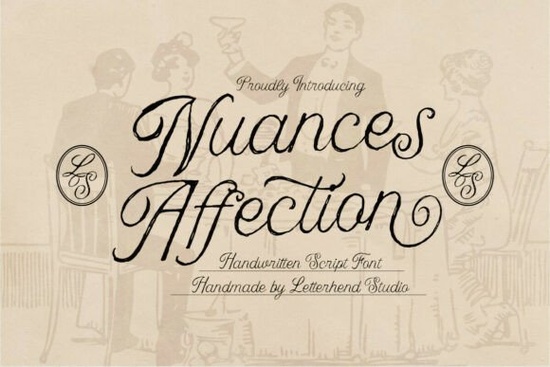
If you're looking for a script font that feels personal, warm, and quietly elegant like something handwritten with care on thick ivory paper Nuances Affection Font fits that feeling perfectly. It’s not flashy or overly ornate, but it carries a gentle confidence: soft curves, subtle swashes, and a rhythm that mimics natural handwriting. Designers and crafters who work with wedding stationery, boutique packaging, or heartfelt greeting cards often tell us this is the kind of typeface they reach for when they want sincerity to show through not just in the words, but in the shape of the letters themselves.
What makes Nuances Affection feel so authentic?
It’s rooted in real historical references not as a strict reproduction, but as a thoughtful interpretation. Think of faded ink on love letters from the early 1900s, or the delicate flourishes on engraved dinner invitations from family celebrations decades ago. The lowercase “g” and “y” have graceful descenders, the capital “S” and “Q” include delicate entry and exit strokes, and spacing is intentionally open enough to breathe on the page. That balance between structure and looseness is why it works well both at large sizes (like a wedding monogram) and smaller applications (such as a tagline on a candle label).
Where does it pair well with other fonts?
Because Nuances Affection leans into elegance without stiffness, it pairs beautifully with clean sans-serifs or softly structured serifs. For example, pairing it with Raleway Font gives contrast without competition think headline in Nuances Affection, body text in Raleway. If you’re designing for a vintage-themed brand, you might layer it with Wonderful Vintages Font for secondary text or decorative elements. And for wedding projects, many designers combine it with Wedding Natalia Font to add complementary script texture without visual clutter.
Is it practical for everyday use?
Yes if your work values tone as much as legibility. It’s not ideal for long paragraphs or small UI text, but it shines where attention is intentional: logos for artisanal bakeries, social media quote graphics, printable wall art, or custom embroidery digitizing (since its smooth lines translate well to stitch paths). Print-on-demand sellers especially appreciate how it adds personality to mugs, tote bags, and framed prints without looking dated or gimmicky. One small business owner told us she used it for her “hand-poured soy candles” label and customers regularly comment on how the font makes the product feel more personal, even before they smell the scent.
How does it compare to other popular script fonts?
Unlike bolder, high-contrast scripts like Mallestian Script Font, Nuances Affection has lower contrast between thick and thin strokes so it feels softer and more approachable. Compared to Snapshot Font, which leans playful and casual, Nuances Affection holds more quiet refinement ideal when you want warmth without whimsy. It’s also less formal than calligraphic fonts meant strictly for certificates or diplomas, making it more versatile across modern creative uses.
Things to keep in mind before using it
- Test readability at your intended size especially if printing small text on fabric or labels.
- Check ligature support in your design software; some swashes activate only with OpenType features enabled.
- Use it intentionally: one strong application per layout usually works better than multiple script layers.
- Pair it with typefaces that share similar x-heights and proportions for visual harmony.
- Remember that script fonts often benefit from extra letter-spacing (tracking) in all-caps or short headlines.